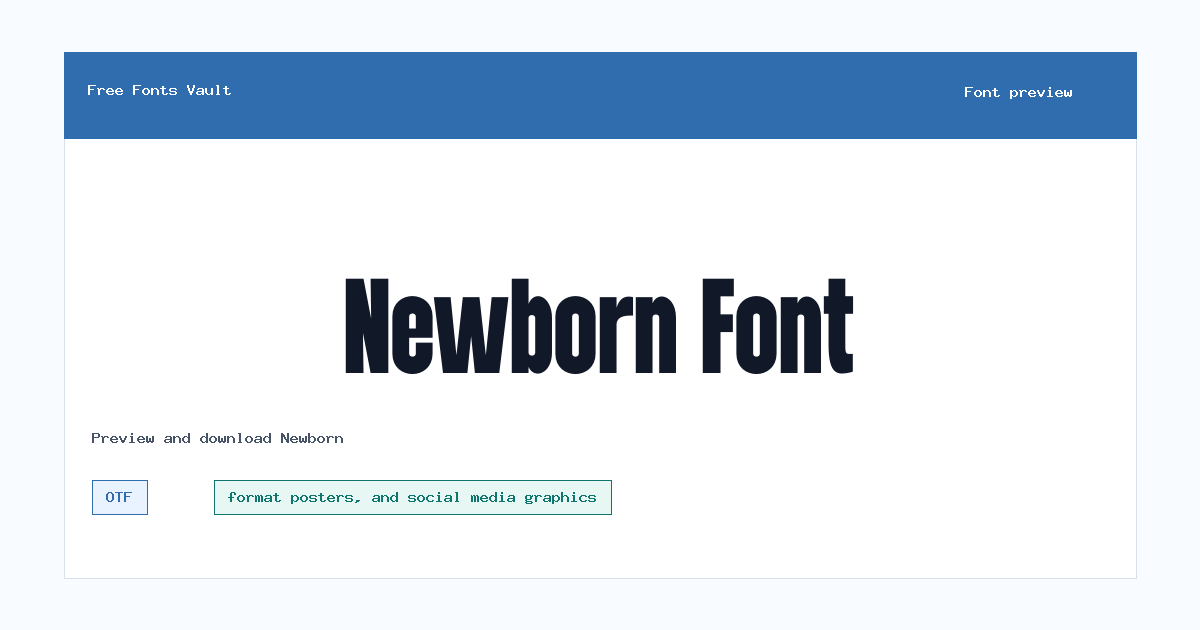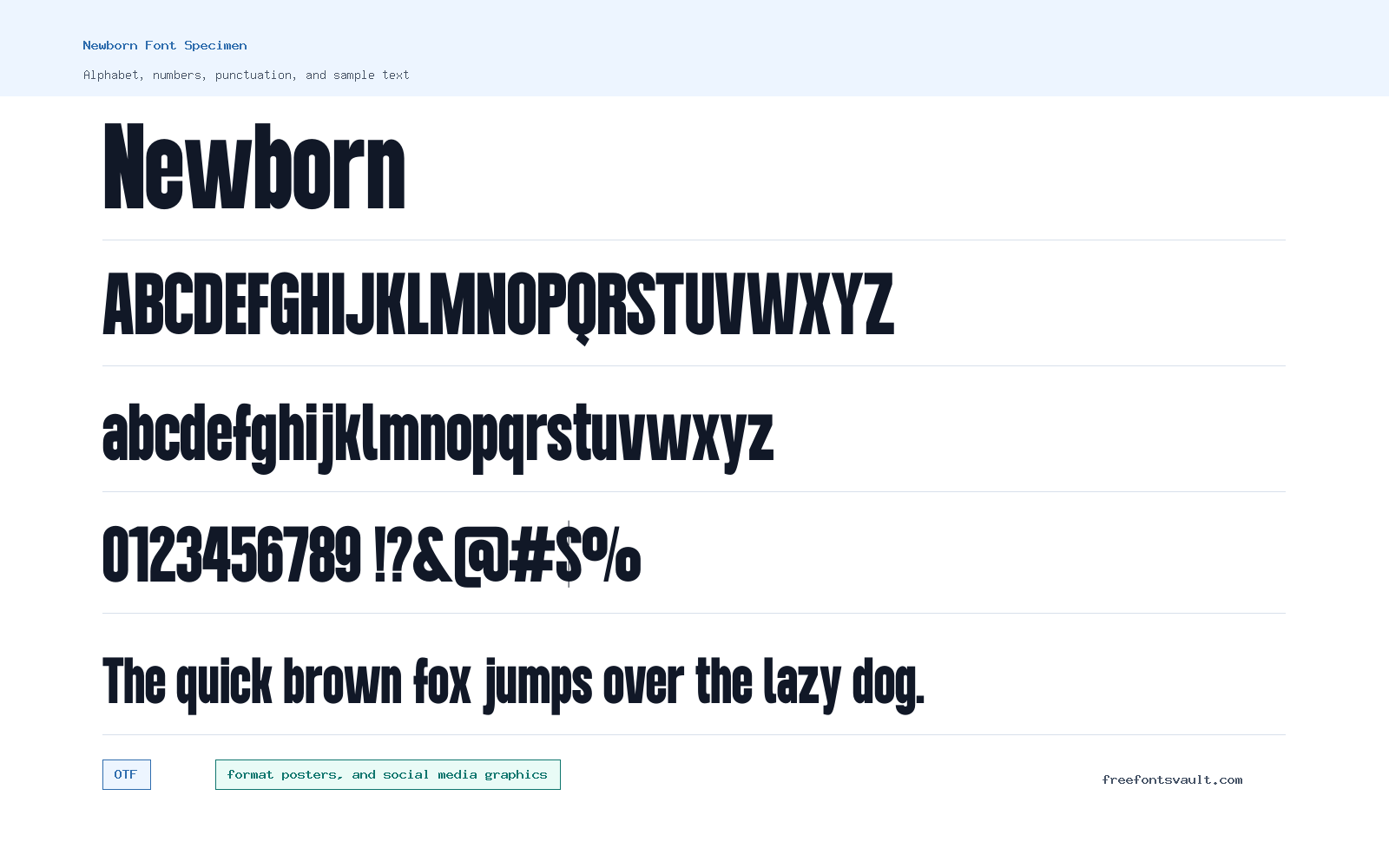
Newborn
- Designer Funtype Co.
- Foundry Funtype Co.
Newborn font.
Newborn is a bold condensed sans serif display font with a tall, compact shape and a clean modern look. It is built for short text that needs strong visual presence, such as headlines, posters, logos, and social media graphics.
About Newborn Font
Newborn uses narrow letterforms, heavy strokes, and a simple sans serif structure. That combination gives it a strong display feel without adding decorative details. It works best when the text is short and direct: a brand name, event title, poster headline, product label, or bold callout. The GraphicRiver listing describes Newborn as a modern condensed sans serif display font and notes OTF and TTF formats with 190+ glyphs, while this download entry includes an OTF regular style.
Because the design is condensed and high-impact, it can save space in wide headlines while still feeling bold. Test it at larger sizes in the preview tool, especially with all caps, numbers, and punctuation. For longer paragraphs, pair it with a more open text font so the page remains easy to read. Newborn is better as a headline or display face than as a body-copy font.
Newborn is strongest when the message is brief and forceful. It can make a headline feel compact and confident, but the same condensed shape can feel crowded if the text line is too long. Test one-word titles, two-line poster text, and brand names before choosing it for a final layout.
- Bold condensed sans serif display style
- Clean modern letterforms suited to short titles
- Poster headlines
- Branding concepts
- Social media graphics
- Logo drafts and wordmarks
- Event titles
- Packaging or label mockups
Newborn is credited to Funtype Co.
Use Newborn for short, high-visibility text. Try tighter or wider letter spacing in your design app, and avoid using it for long paragraphs because condensed display fonts can become tiring to read at small sizes. Use generous line height when stacking words, and keep a simpler companion font for captions, descriptions, or legal text.
What kind of font is Newborn?
Newborn is a bold modern condensed sans serif display font. It is mainly suited to headlines, posters, branding tests, and other short text uses.
Is Newborn good for body text?
It is better for display text than body copy. Use it for short headings and pair it with a more readable text font for paragraphs.
Who made Newborn?
The font is credited to Funtype Co.